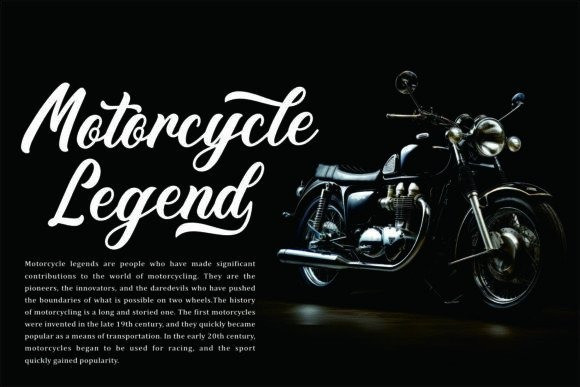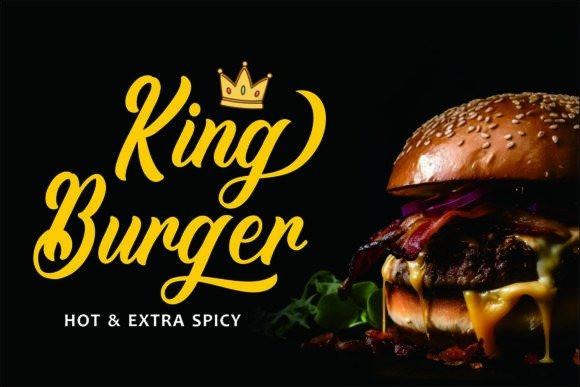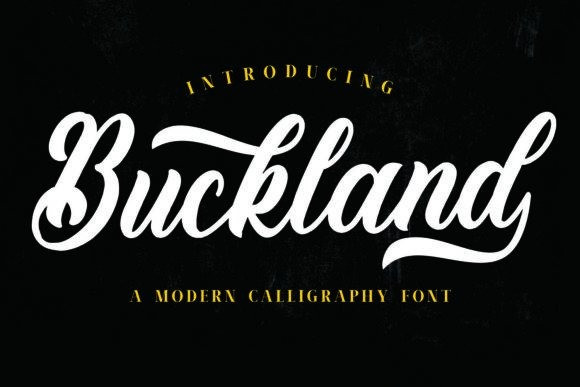
Buckland Font
Buckland Font a vintage script handwritten font that perfectly captures the essence of the 70s, 80s, and 90s. With its elegant, flowing curves and nostalgic charm, Buckland brings a touch of retro sophistication to any project. Ideal for branding, posters, and invitations, this font is designed to evoke memories of a bygone era while adding a unique, contemporary twist.